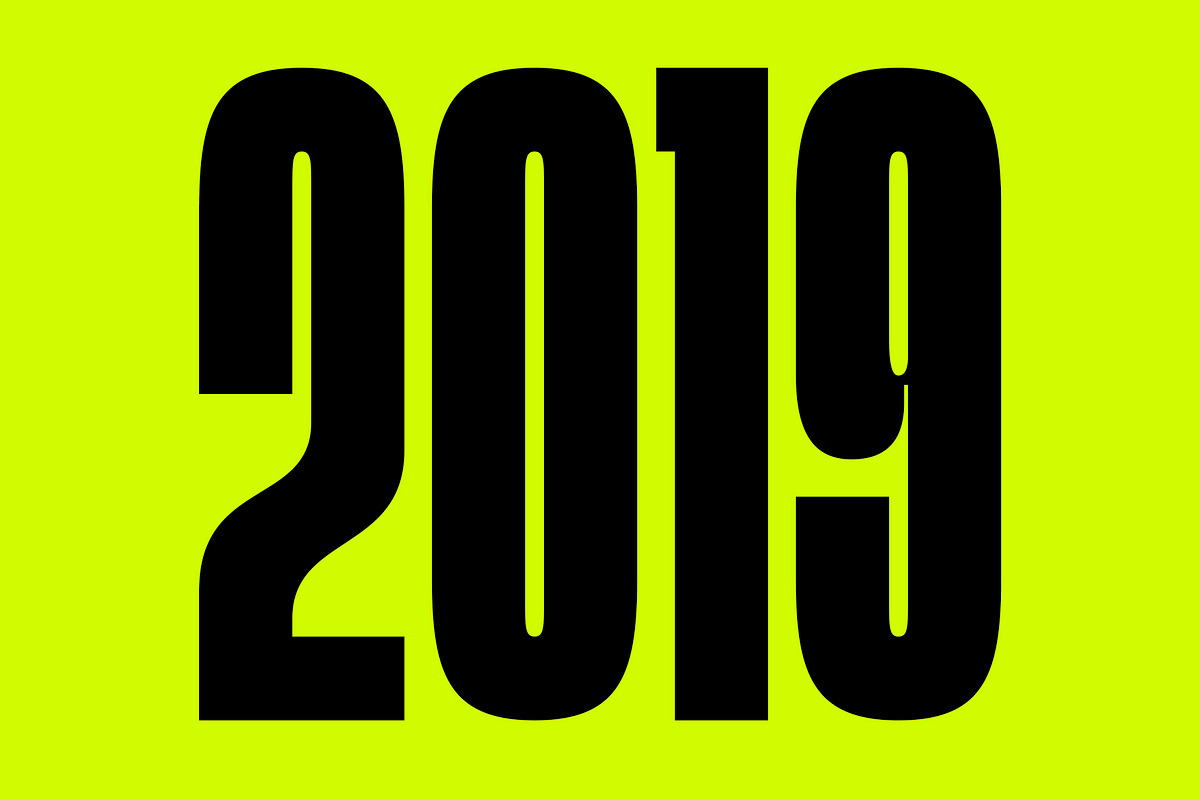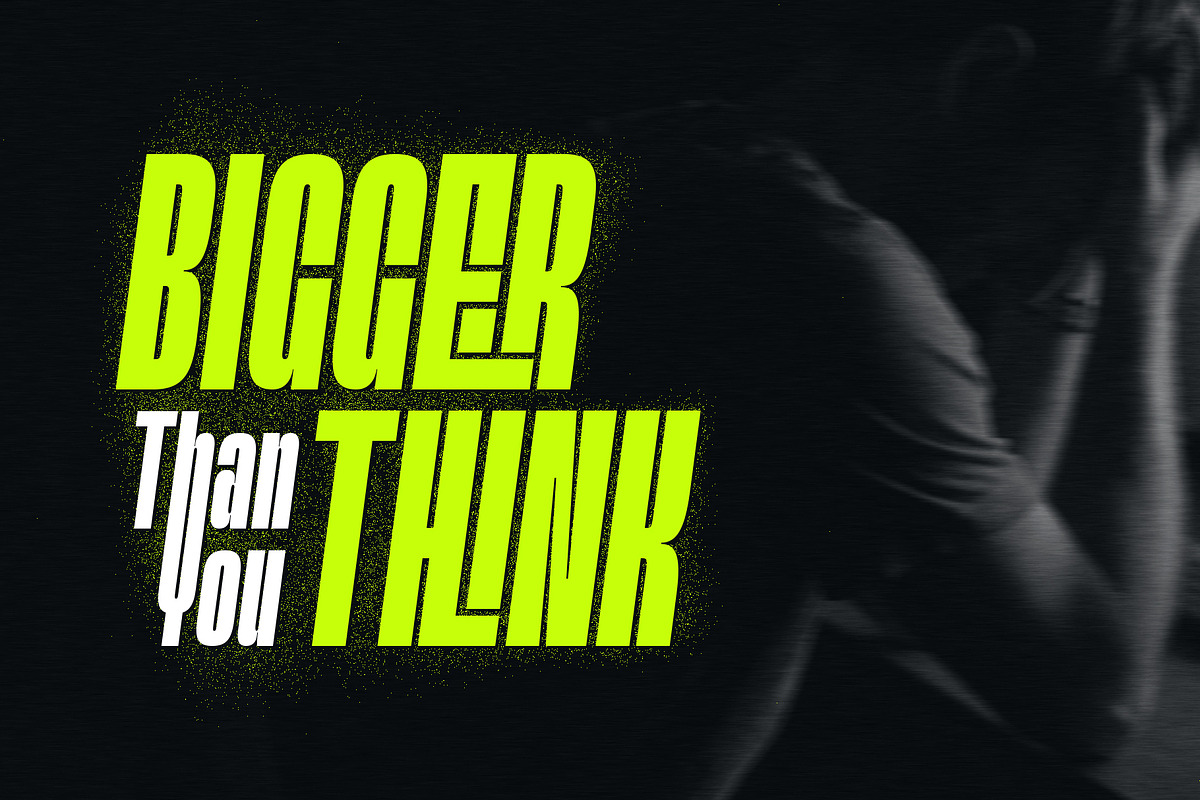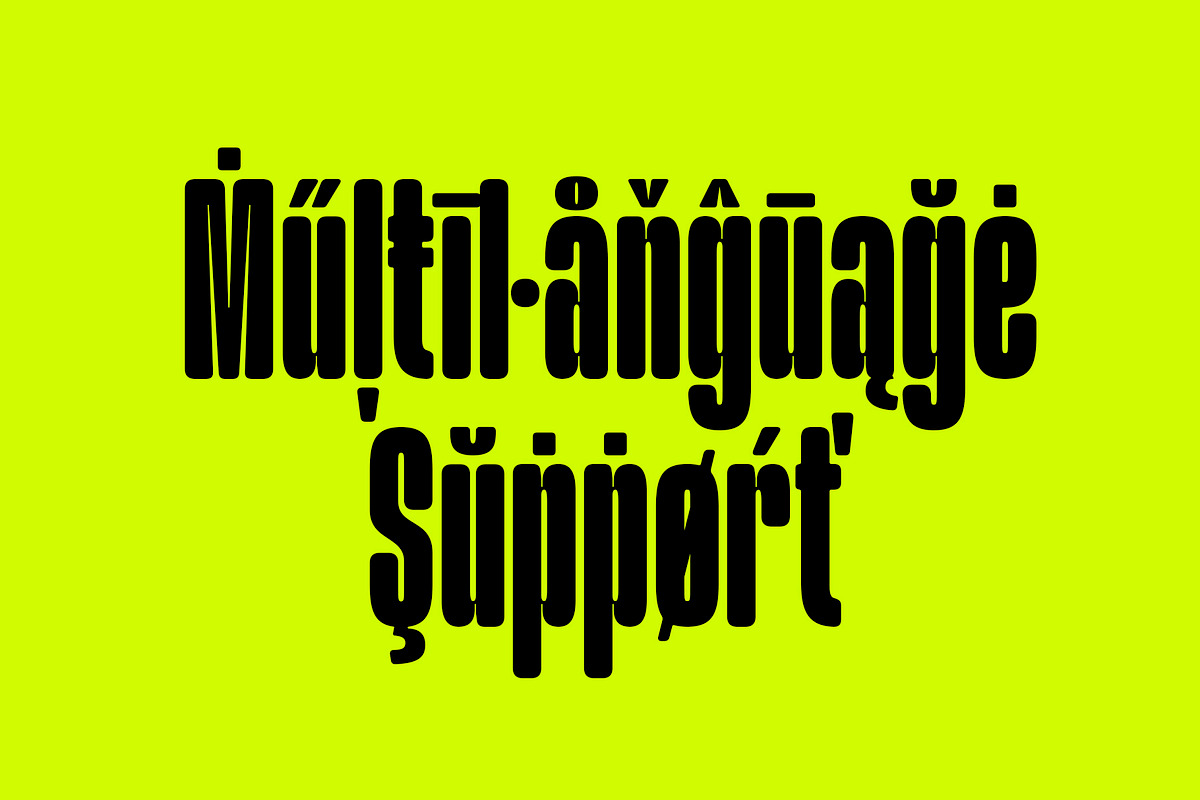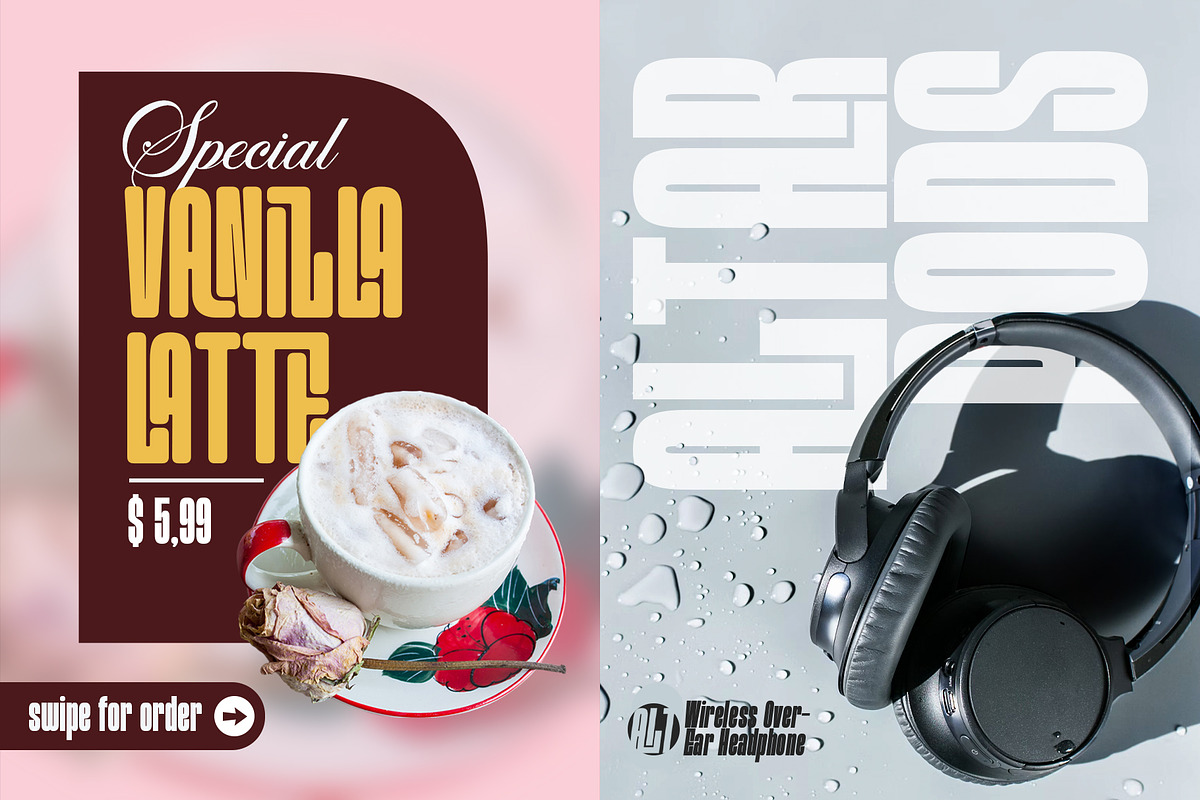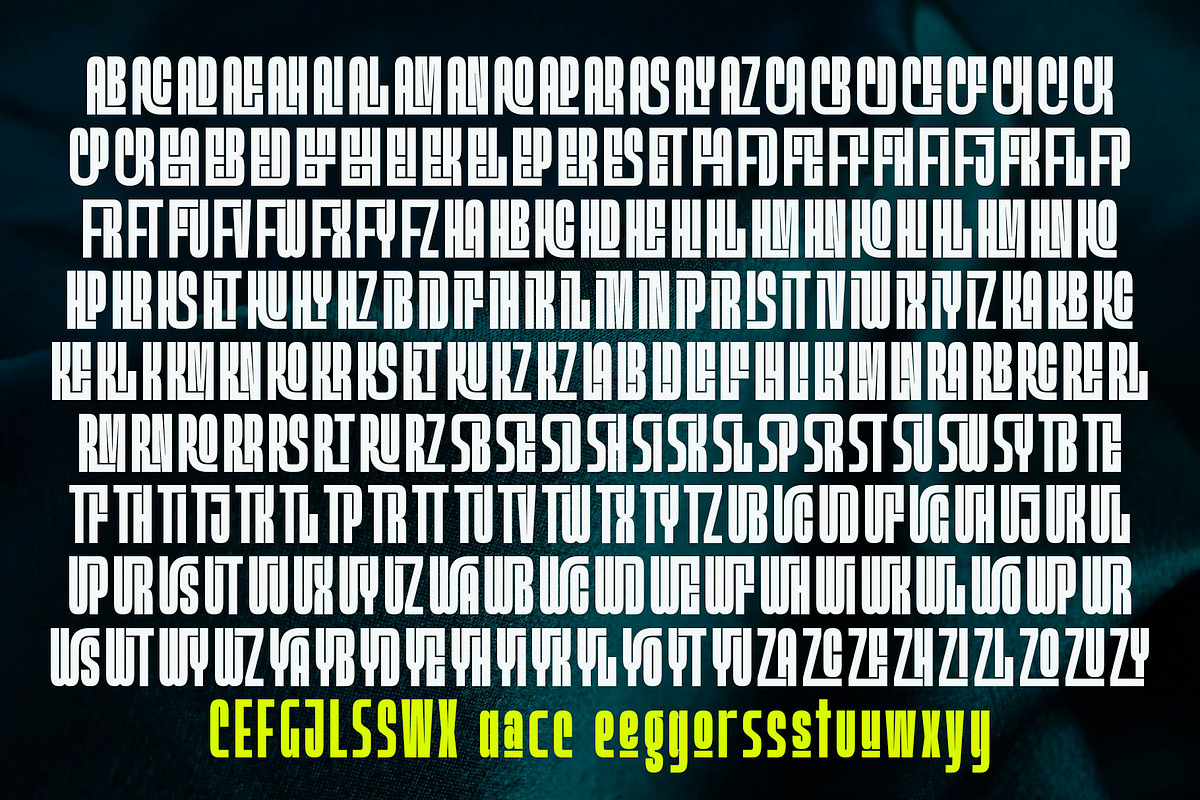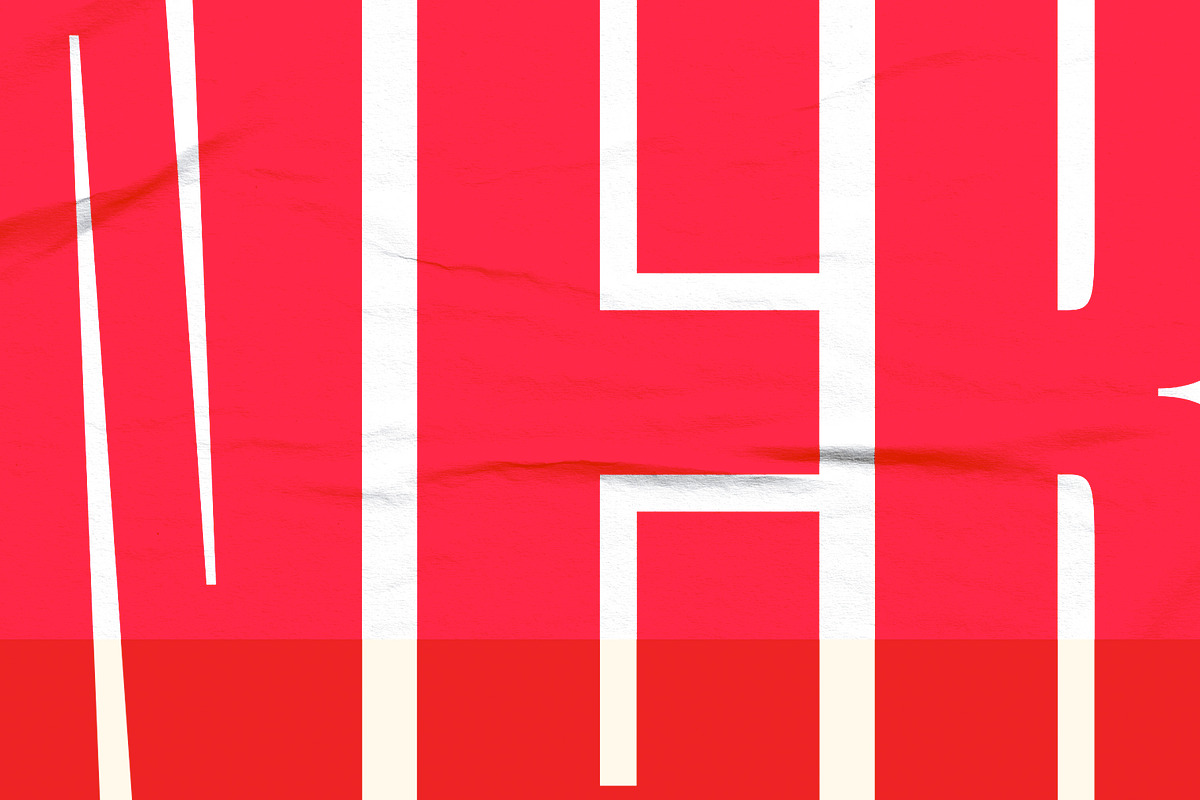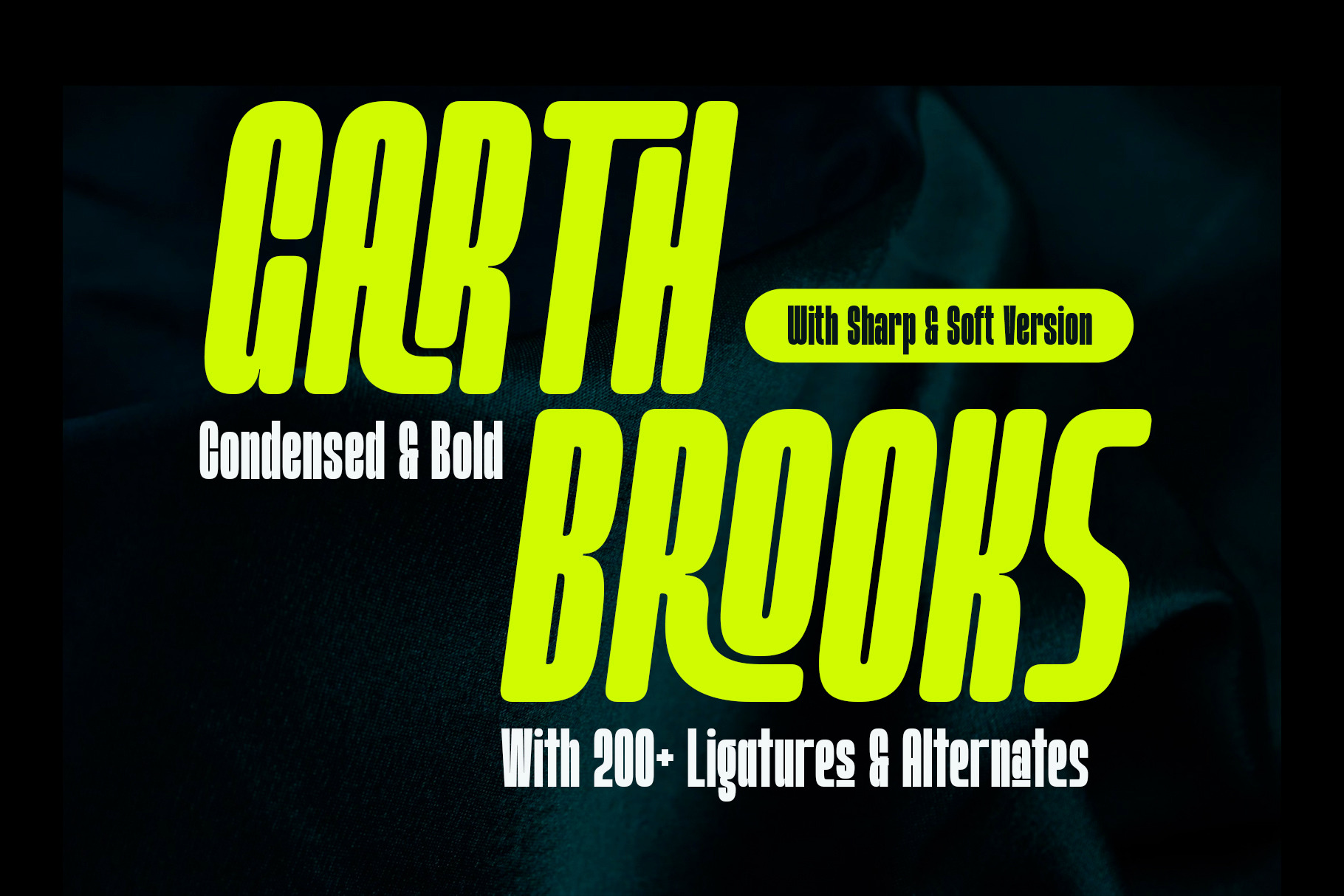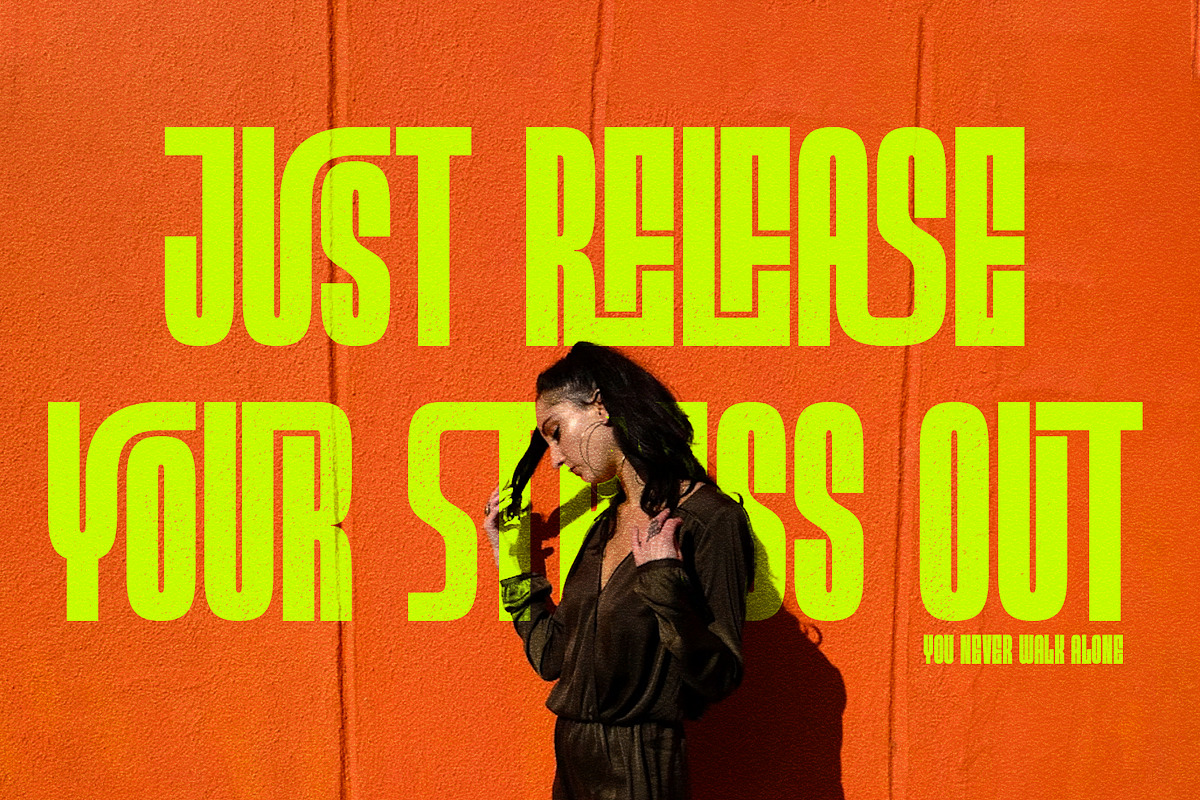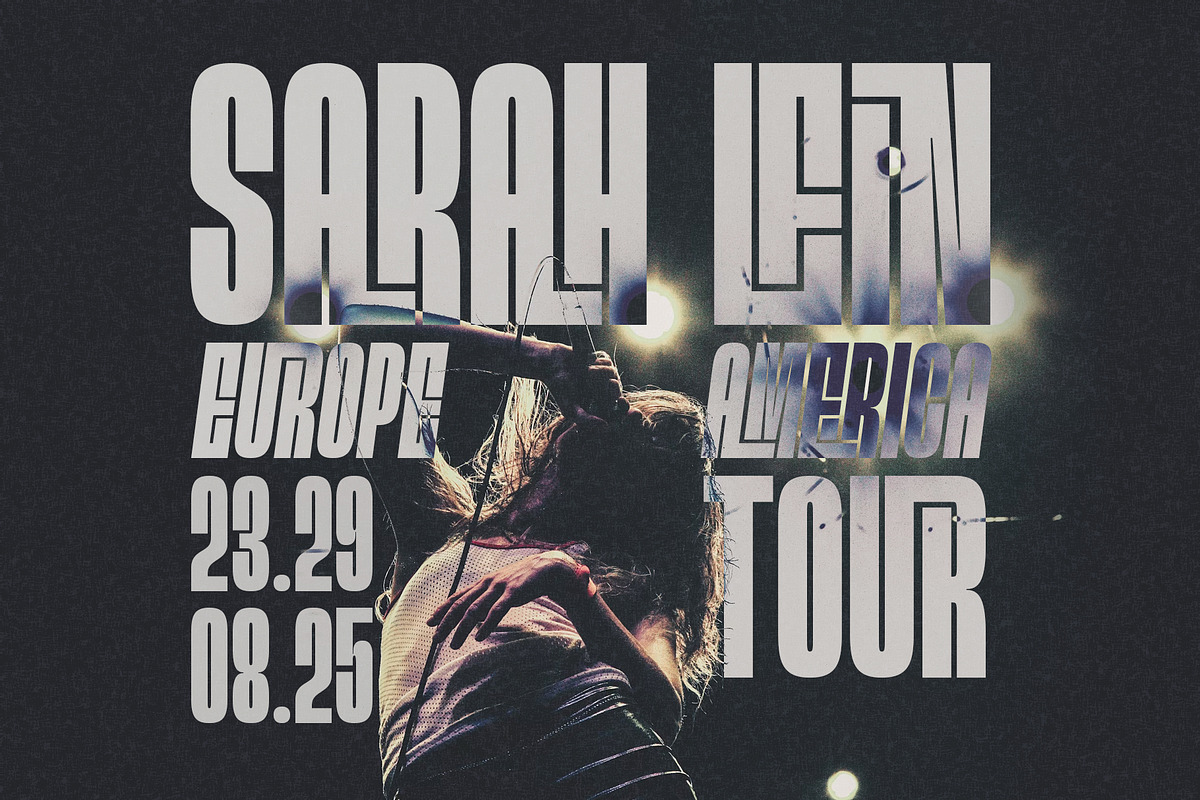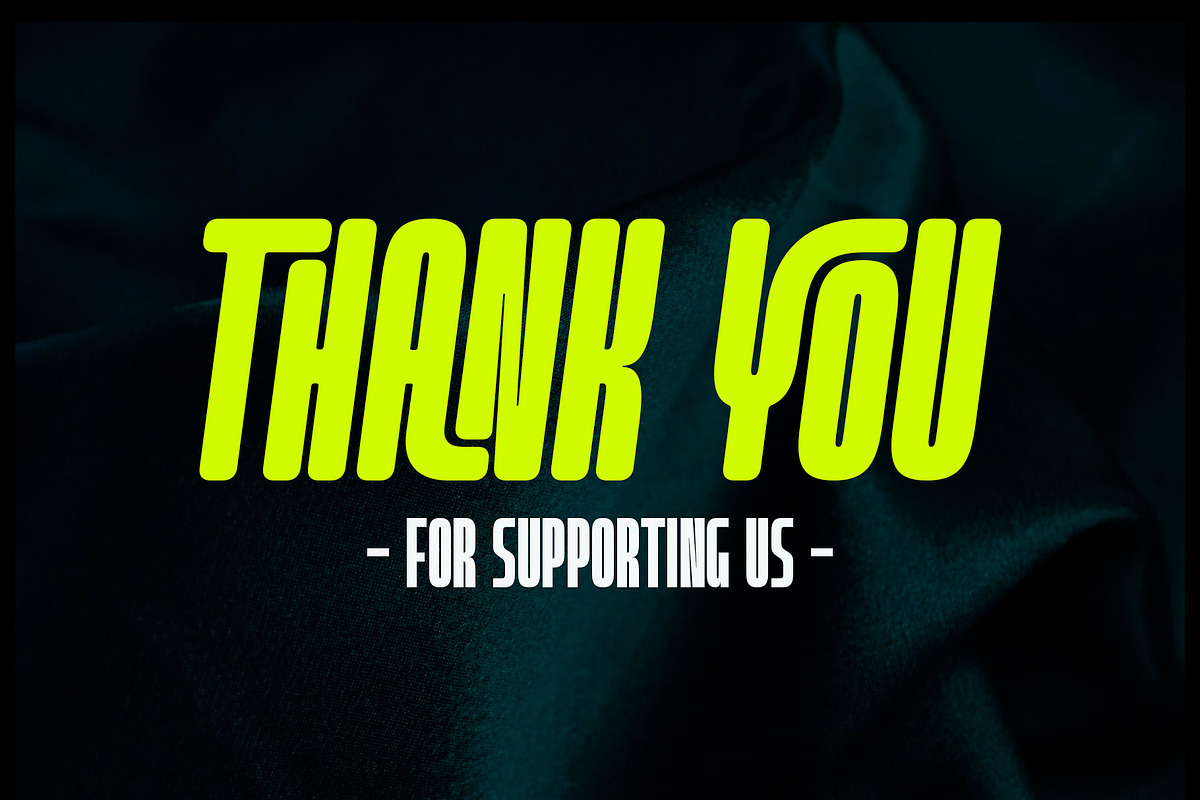
Garth Brooks Font Family
Garth Brooks super condensed font features 200+ ligatures and alternate character, blending modern and vintage styles. Its sleek, maximizes space while maintaining readability—perfect for bold headlines, logos, and branding. versatile and highly customizable, Brooks adds a touch of sophistication to any project.
- 200+ ligatures and alternate character
- Available in 2 styles, regular and oblique